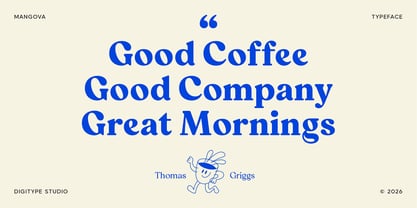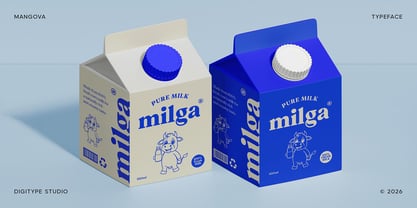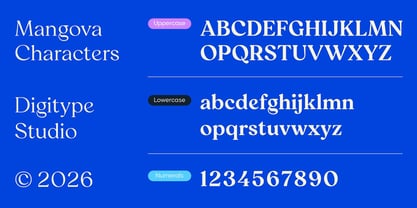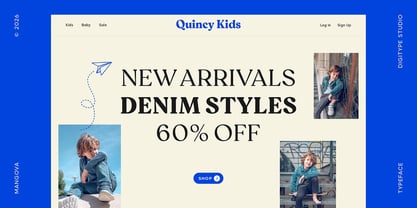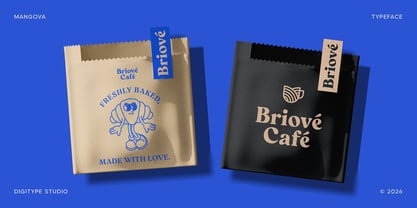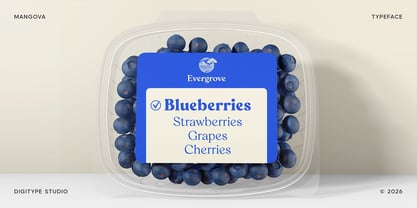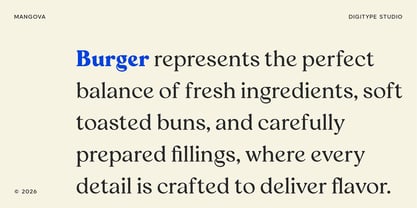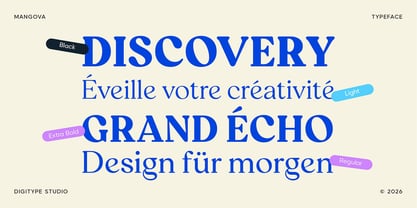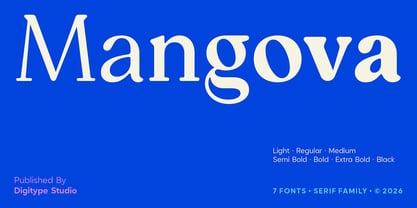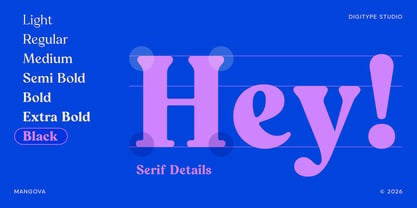
Mangova
The Mangova Font Family was designed by Yusuf Niky Syahroni and published by Digitype Studio. Mangova contains 7 styles and family package options. More about this family
Mangova is a modern serif typeface that combines timeless elegance with a contemporary touch. Inspired by the form of a mango, its distinctive lowercase "g" becomes the typeface's signature feature, adding a unique visual identity. Available in 7 weights (Light–Black), Mangova features concave upper serifs and square lower serifs with subtle curves, creating a refined visual balance throughout its uppercase letterforms. Elegant, warm, and highly recognizable, Mangova is perfect for branding, editorial layouts, packaging, and digital design, delivering both personality and exceptional readability.